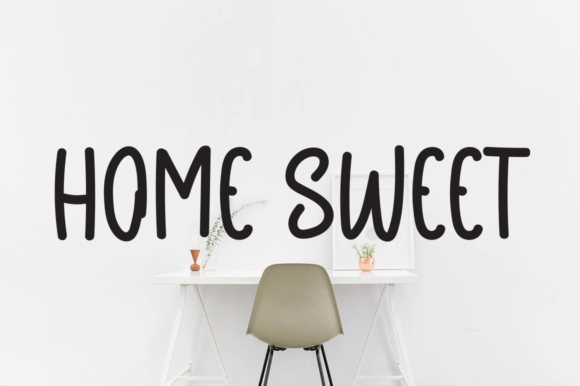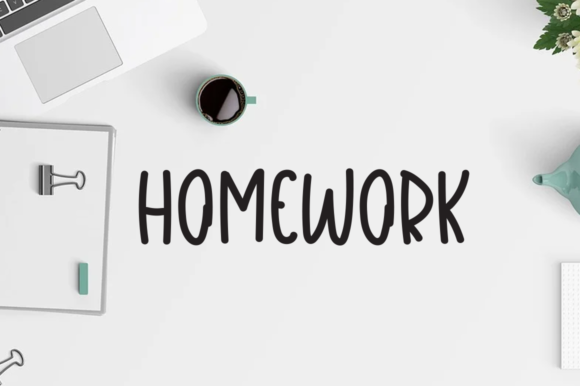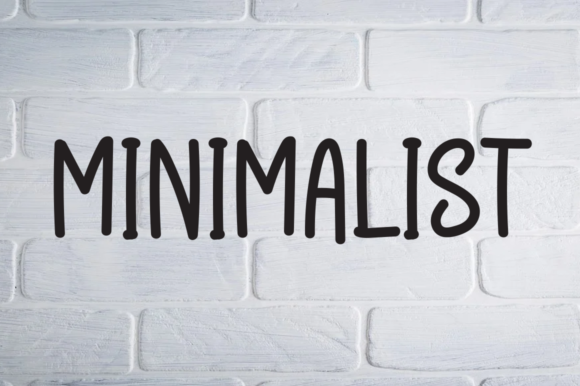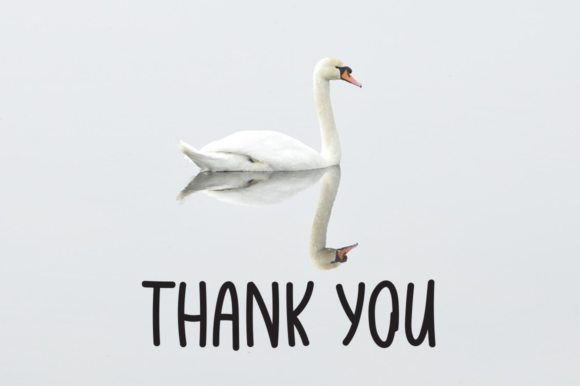
Introducing Enjoy Summer Font: Elevate Your Designs with Elegance and Grace
As the summer season approaches, designers and crafters are on the lookout for fresh and exciting fonts to elevate their creative projects. If you’re searching for a typography that exudes elegance and sophistication, look no further than Enjoy Summer Font. This stunning display font is perfect for making a statement in various design applications, from books and magazines to banners, marketing materials, business cards, and stationery.
The Characteristics of Enjoy Summer Font
Enjoy Summer is a peculiarly elegant and graceful display font, designed to add a touch of refinement to your designs. Its unique characteristics make it an excellent choice for bold projects that require a high level of sophistication. With Enjoy Summer Font, you can expect:
- Elegant and Refined Letterforms: Each letter is carefully crafted to convey a sense of luxury and poise, making it perfect for high-end designs.
- Display Font Versatility: Enjoy Summer Font is designed to make a statement, making it suitable for a wide range of applications, from large-scale banners to smaller, yet impactful, business cards.
- Legibility and Readability: Despite its elegant nature, Enjoy Summer Font remains highly legible and readable, ensuring your message is conveyed effectively.
The versatility of Enjoy Summer Font makes it an excellent addition to any designer’s toolkit. Here are some of the many ways you can utilize this beautiful font:
- Books and Magazines: Add a touch of sophistication to your editorial designs, making your content stand out on bookstands and newsstands.
- Banners and Posters: Create eye-catching displays that command attention with Enjoy Summer Font’s bold and elegant letterforms.
- Marketing Materials: Elevate your brand’s marketing efforts with professional-looking materials that showcase your company’s elegance and refinement.
- Business Cards and Stationery: Make a lasting impression with beautifully designed business cards and stationery that reflect your brand’s personality.
Why Choose Enjoy Summer Font?
With so many fonts available, why should you choose Enjoy Summer Font for your next design project? Here are a few compelling reasons:
- Unique and Distinctive: Enjoy Summer Font offers a fresh and unique perspective on elegant typography, setting your designs apart from the competition.
- High-Quality Design: Crafted with attention to detail, Enjoy Summer Font is a high-quality design that will elevate your projects and reflect positively on your brand.
- Ease of Use: Enjoy Summer Font is easy to integrate into your design workflow, allowing you to focus on the creative aspects of your project.
Tips for Using Enjoy Summer Font Effectively
To get the most out of Enjoy Summer Font, consider the following tips:
- Pair with Complementary Fonts: Combine Enjoy Summer Font with complementary fonts to create visual interest and add depth to your designs.
- Experiment with Colors and Textures: Don’t be afraid to experiment with different colors and textures to add an extra layer of sophistication to your designs.
- Use for Headlines and Titles: Enjoy Summer Font is perfect for headlines and titles, making it an excellent choice for grabbing attention and conveying your message.
Enjoy Summer Font is a stunning display font that offers elegance, sophistication, and versatility. Whether you’re a designer or crafter, this font is sure to elevate your creative projects and make a lasting impression. With its unique characteristics, high-quality design, and ease of use, Enjoy Summer Font is an excellent addition to any design toolkit. So why wait? Download Enjoy Summer Font today and start creating bold, eye-catching designs that showcase your creativity and style.